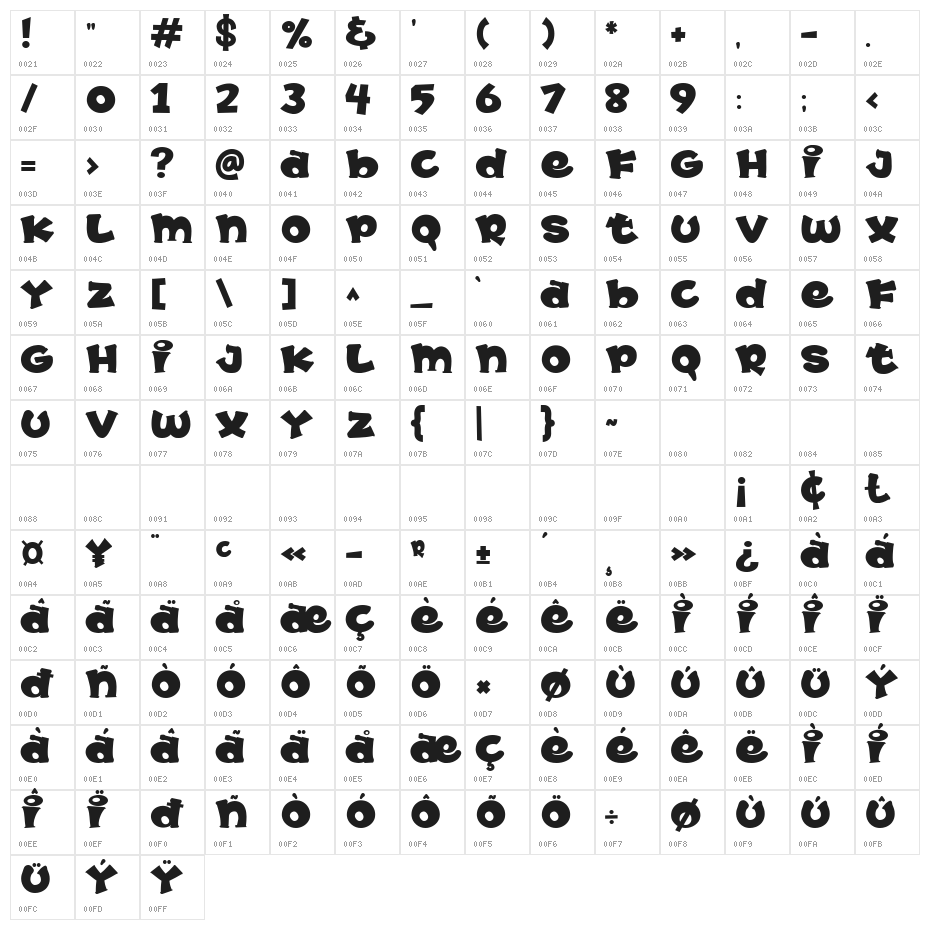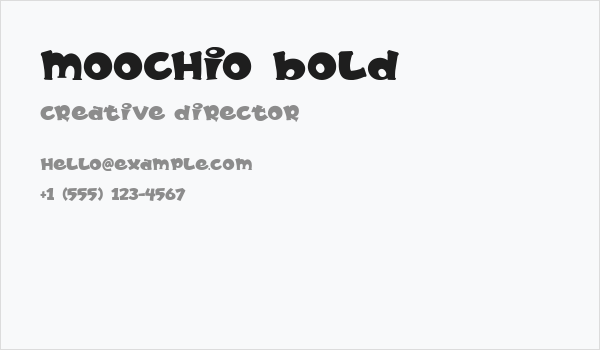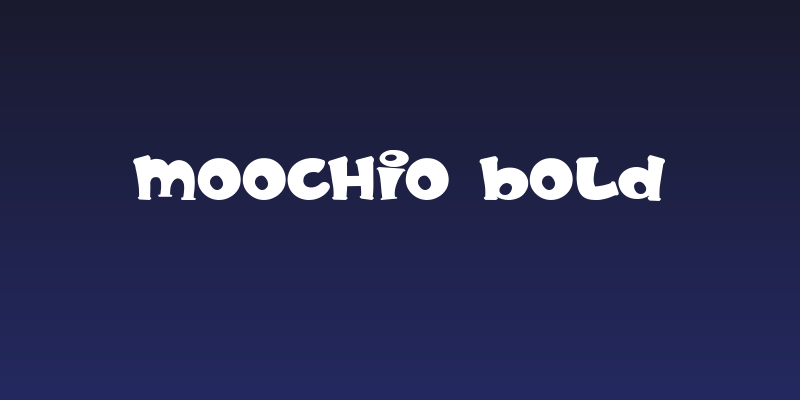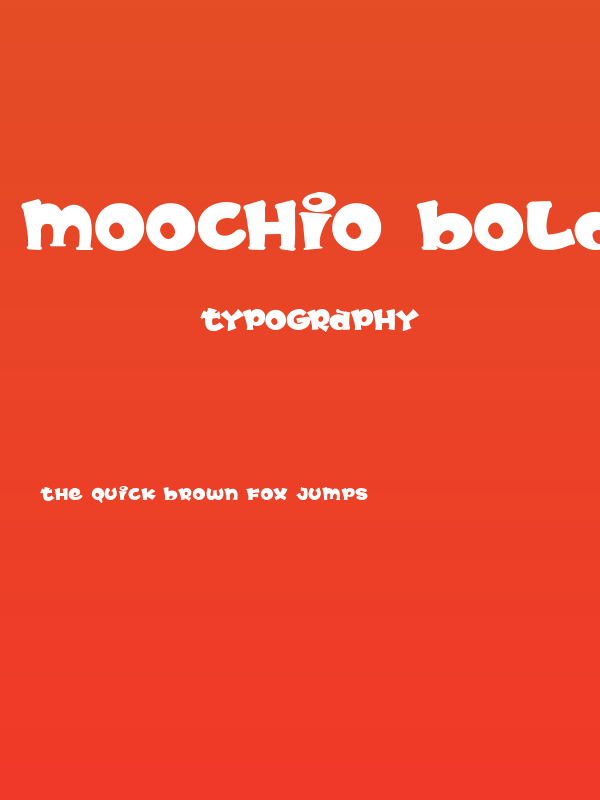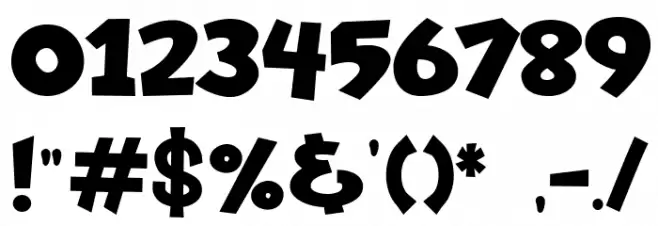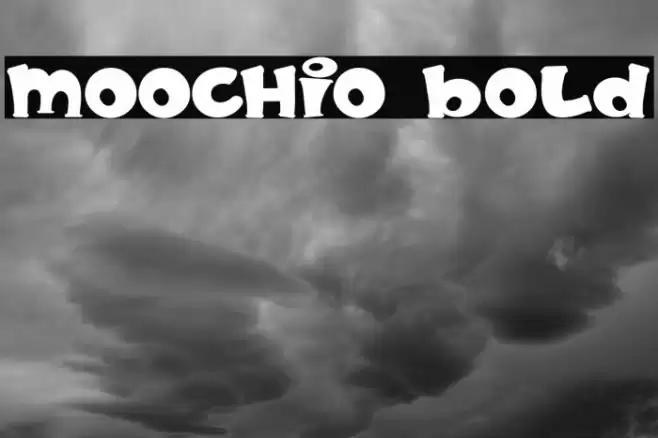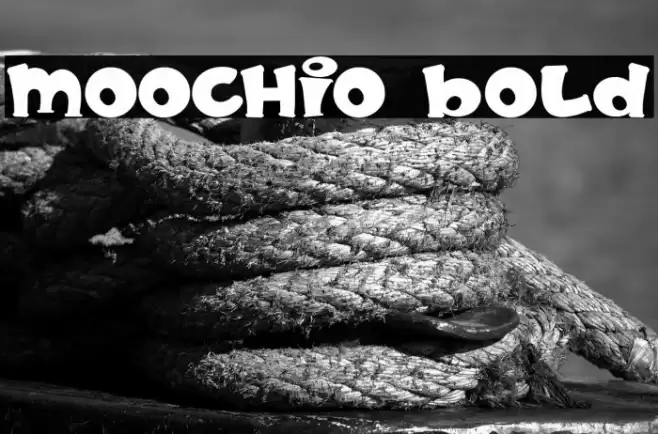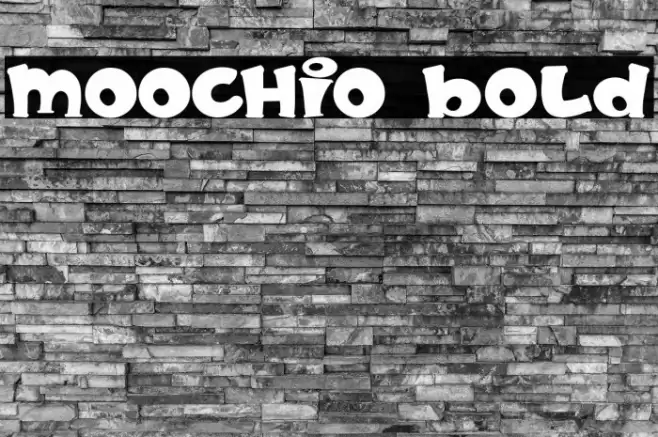
MOOCHIO Bold Font
MOOCHIO Bold Description
This font features a bold and playful design with exaggerated curves and a whimsical style. The characters are thick and rounded, giving a sense of fun and creativity. The uppercase and lowercase letters maintain a consistent weight, providing a cohesive look. The numbers and special characters follow the same playful theme, making them suitable for eye-catching designs. The overall appearance is lively and energetic, perfect for projects that require a touch of humor and vibrancy.
| Use Case | Logos, Posters, Invitations |